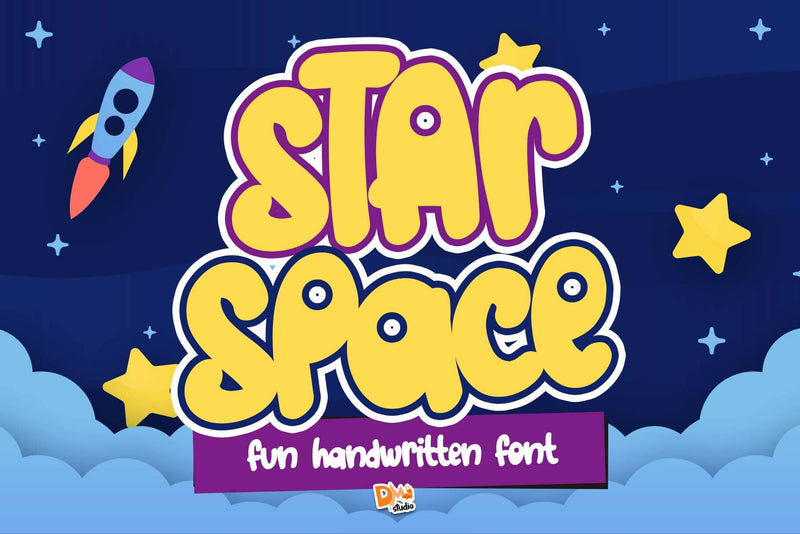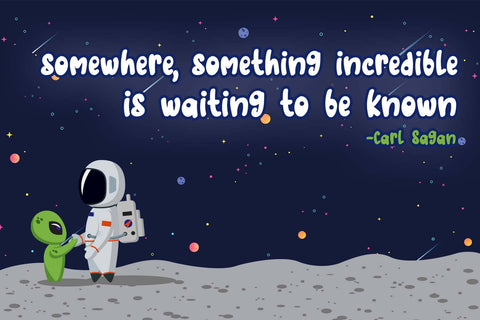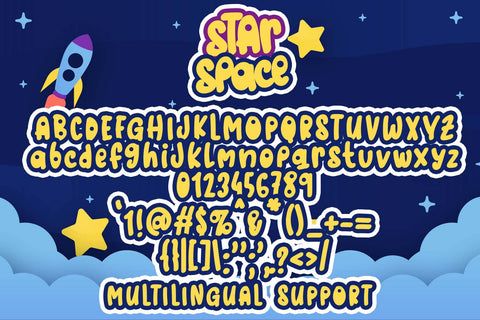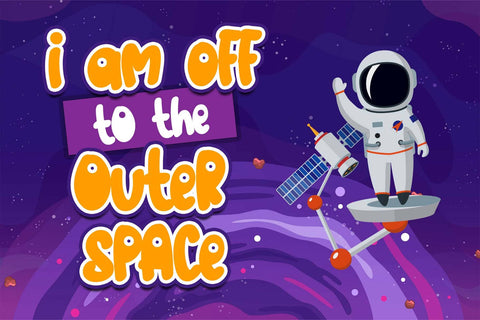
Star Space Font
Star Space Font is a captivating and versatile typeface crafted to evoke the celestial wonders of the cosmos. With its cosmic letterforms and futuristic style, this font is perfect for a myriad of design applications, including sci-fi branding, space-themed posters, digital interfaces, and more. Elevate your designs with the stellar and cosmic aesthetic of the Star Space Font.
- Cosmic and Futuristic Design: The Star Space Font boasts a cosmic and futuristic design that brings an otherworldly quality to your text.
- Versatility in Application: Ideal for a wide range of design projects, from sci-fi branding to space-themed posters, adding a stellar and cosmic element to your creative endeavors.
- Uppercase and Lowercase Letters: Both uppercase and lowercase letters included for creative flexibility.
- Punctuation and Symbols: Comprehensive set of punctuation marks, numerals, and symbols for consistent and versatile use.